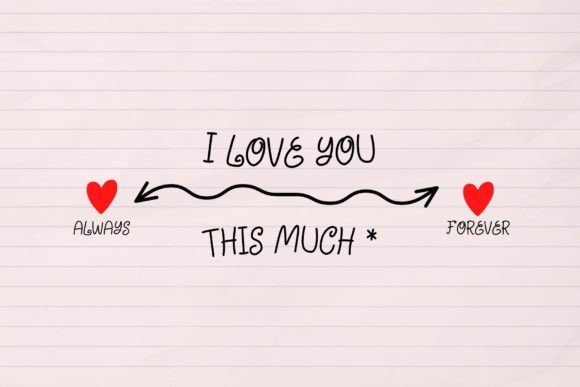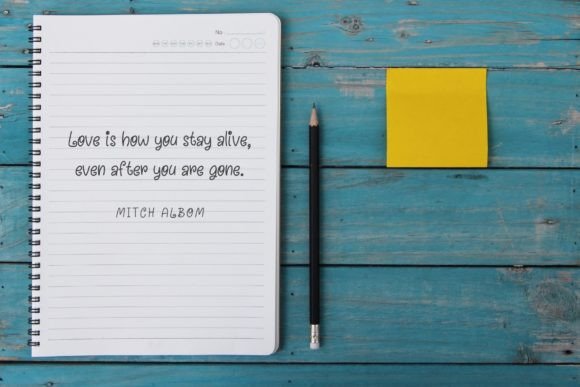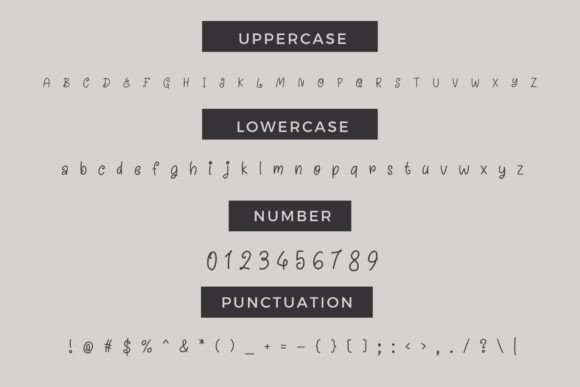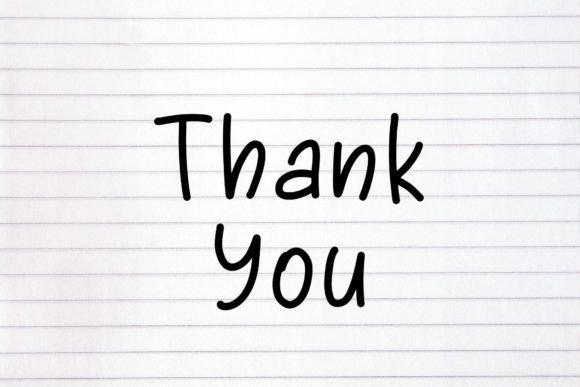
Introducing Anika Font: The Cute Handwritten Font for Your Creative Projects
Are you looking for a font that embodies playfulness and authenticity? Look no further than Anika Font! This adorable handwritten font is perfect for adding a personal touch to your designs, making it ideal for a wide range of projects. In this article, we’ll explore the features and benefits of Anika Font, and how it can elevate your creative endeavors.
What is Anika Font?
Anika Font is a carefully crafted handwritten font that exudes a sense of playfulness and charm. Its unique and authentic style makes it perfect for designers and crafters who want to add a personal touch to their work. Whether you’re creating blog posts, logos, branding materials, ads, invitations, greeting cards, planners, photo albums, decorations, or more, Anika Font is the perfect choice.
Key Features of Anika Font
- Playful and Authentic Style: Anika Font has a unique and charming handwritten style that adds a personal touch to your designs.
- Versatile: This font is suitable for a wide range of projects, from digital designs to print materials.
- Easy to Read: Anika Font is clear and legible, making it perfect for body text and headings.
- High-Quality: This font is carefully crafted to ensure high-quality output, even at small sizes.
Benefits of Using Anika Font
- Adds a Personal Touch: Anika Font’s handwritten style adds a personal and human touch to your designs, making them more relatable and engaging.
- Enhances Creativity: This font’s playful and authentic style inspires creativity and can help you think outside the box.
- Perfect for Branding: Anika Font is ideal for branding materials, such as logos and business cards, as it adds a unique and memorable touch.
- Great for Digital and Print: This font is optimized for both digital and print use, making it perfect for a wide range of applications.
How to Use Anika Font in Your Designs
- Pair with Other Fonts: Combine Anika Font with other fonts to create a unique and visually appealing design.
- Play with Size and Style: Experiment with different font sizes and styles to create visual hierarchy and emphasis.
Who Can Benefit from Anika Font?
Anika Font is perfect for a wide range of designers and crafters, including:
- Graphic Designers: Add a personal touch to your branding materials, logos, and business cards.
- Bloggers and Writers: Use Anika Font to add a playful and authentic style to your blog posts and articles.
- Crafters and Scrapbookers: Add a personal touch to your scrapbooking and crafting projects with Anika Font.
- Small Business Owners: Use Anika Font to create unique and memorable branding materials.